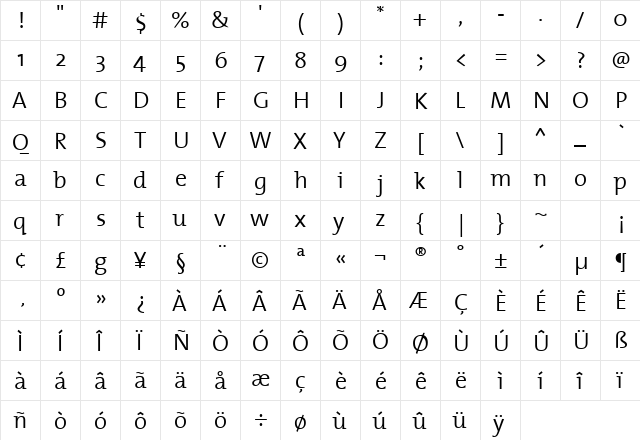
TheMixSemiLight-Plain Regular
Design Context for TheMixSemiLight-Plain Typeface
TheMixSemiLight-Plain offers clean, dependable letterforms without strong stylistic allegiance, making it a practical choice for designers who need flexibility. The delicate stroke weight brings airiness and refinement to layouts.